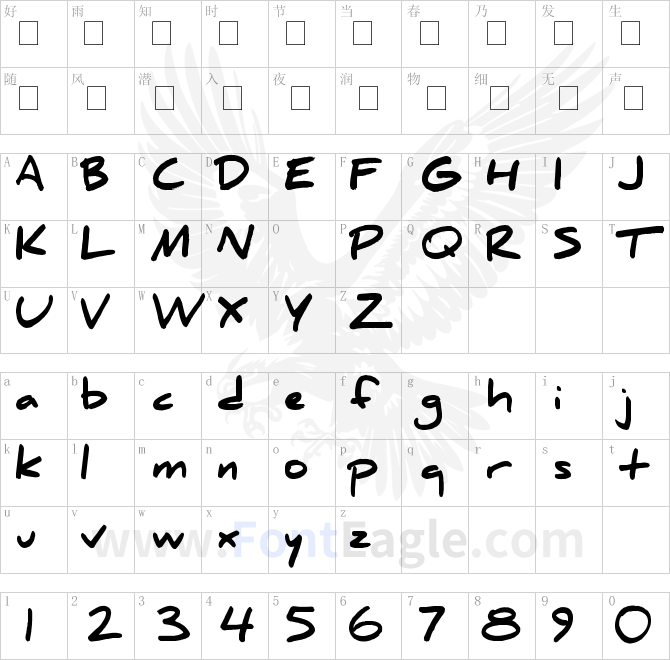
Daniel-Black is a great font, widely used in graphic design, single-page menu design, poster design and other fields, and is deeply loved by designers.Daniel-Black download.